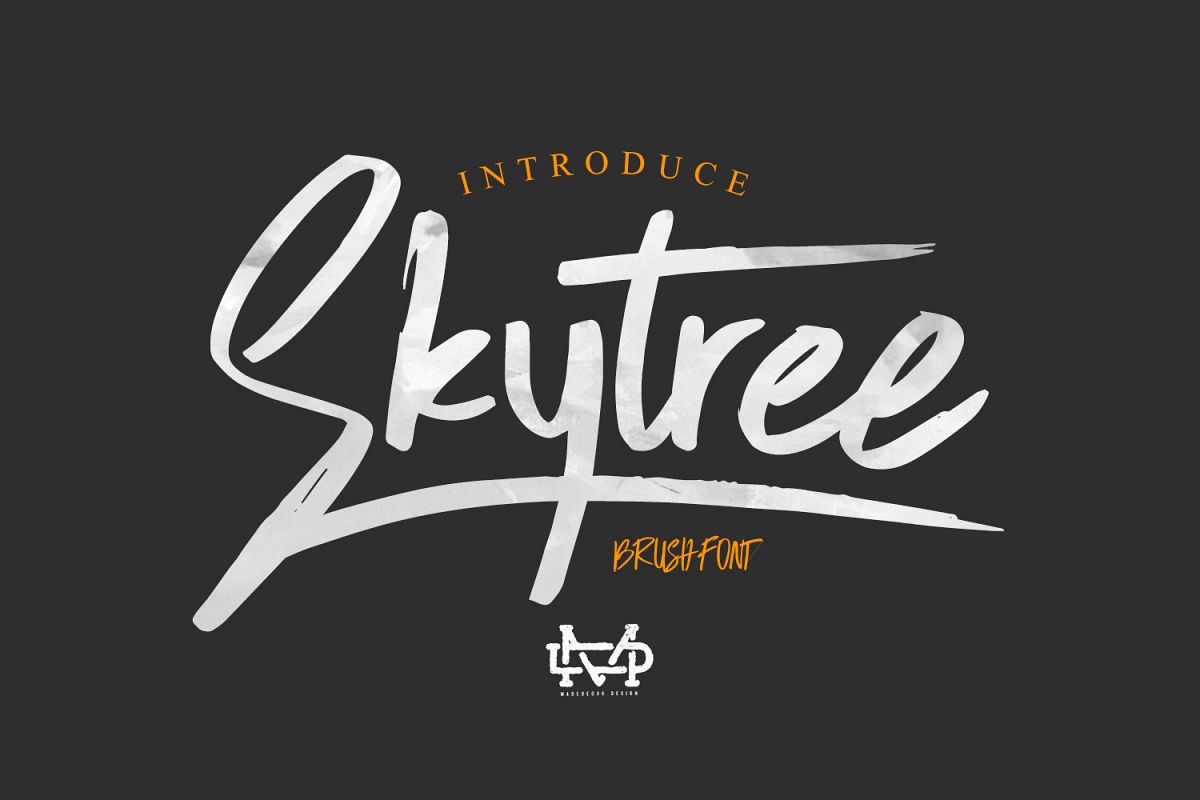
Skytree Script Brush Font
Skytree Swash
Skytree one
Skytree two
Really excited to introduce Skytree is a modern brush script! Skytree perfect for all your designs project, event and more.
Feature
• Character Set A-Z
• Numerals & Punctuations (OpenType Standard)
• Accents (Multilingual characters)
• ligature